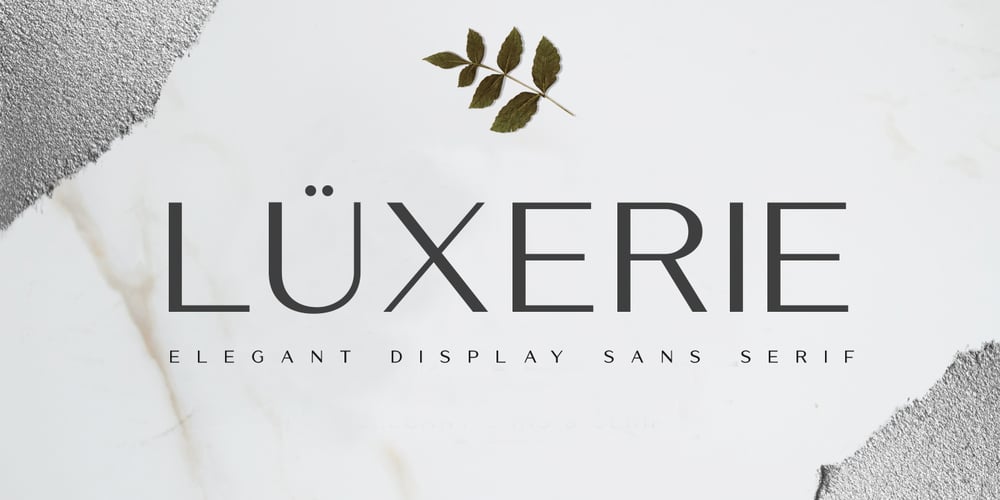
Luxerie
Luxerie font
Luxerie Font Family was designed by Abdul Malik Wisnu and published by MlkWsn. Luxerie contains 3 styles and family package options. Luxerie is an elegant display sans with unique letter shapes to complete any design, especially in fashion, branding, and for logos.